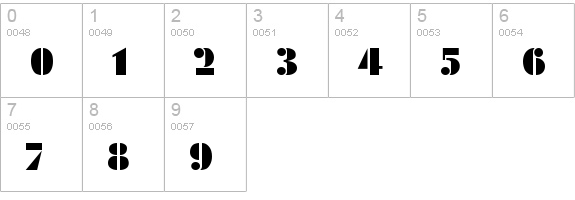
Futurist Black is a maximum-weight, dramatic variant in the Futurist typeface family \xE2\x80\x94 well suited to maximum-impact headlines, posters, and packaging.
Futurist Black font is a sleek and modern typeface that exudes sophistication and elegance. Its bold and geometric design makes it perfect for creating eye-catching headlines, posters, and branding materials. The sharp edges and strong lines of this font give it a futuristic and cutting-edge feel, making it ideal for projects that require a contemporary aesthetic. Best of all, Futurist Black font is available for free download at FontsMarket.com. This means you can easily access this stylish font and use it in your designs without any cost. Whether you're a designer looking to add a touch of modernity to your projects or a creative individual in need of a striking typeface, Futurist Black font is a versatile and high-quality option that won't break the bank. Download it today and elevate your designs with this stunning typeface.